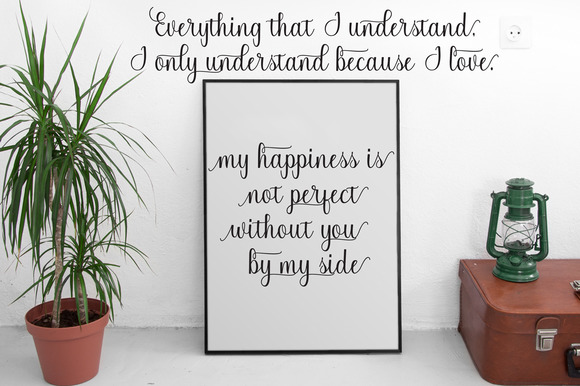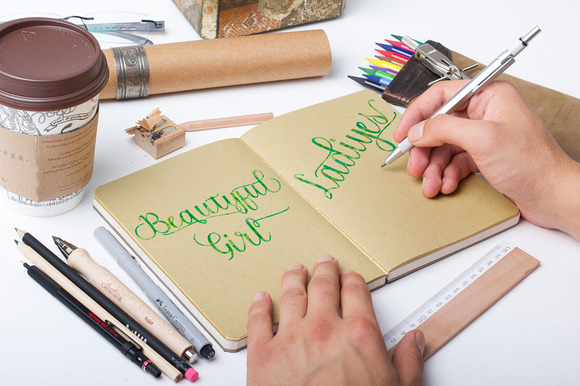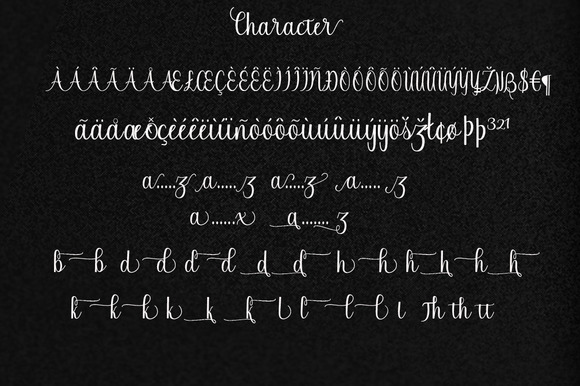
The Birth of a Luxurious Font: Chinchilla Font
As a designer, you know that sometimes the most magical moments come from a spark of inspiration. It’s that ‘aha’ moment when everything falls into place, and your creativity flows effortlessly. For me, it was a chilly winter morning, sipping hot coffee and browsing through font collections online. I stumbled upon a smooth, handmade font that made my heart skip a beat – it was love at first sight!
This is where the Chinchilla Font comes in – a luxurious, handcrafted font designed to elevate your designs to the next level. With its unique, smooth lines and elegant curves, Chinchilla Font is perfect for creating sophisticated and high-end visual content. Whether you’re a graphic designer, a branding expert, or a digital artist, Chinchilla Font is an invaluable addition to your toolkit.
Chinchilla Font Key Features
- Font Family: Chinchilla Font offers a range of font styles, including Regular, Italic, Bold, and Bold Italic.
- Unique Characteristics: Chinchilla Font features a unique, hand-drawn design with subtle texture and organic feel, making it ideal for creative and artistic applications.
- Font Metrics: Chinchilla Font has an x-height of 450 units and an average character width of 500 units, providing a balanced and readable text experience.
Chinchilla Font Review
Overall, I’m quite impressed with the Chinchilla Font. It’s a unique, high-quality typeface that stands out from the crowd. Here are some things that really work well:
- ✨ Beautiful, elegant design: The Chinchilla Font has a beautiful, flowing design that’s perfect for titles, headings, and other display typography.
- ✨ Great legibility: Despite its elegant design, the font is still highly legible, making it suitable for body text as well.
- ✨ Wide language support: The font supports a wide range of languages, including Latin, Cyrillic, and Greek alphabets.
However, there are a few limitations to keep in mind:
- ⚠️ Limited font weights: While the font has a range of styles, it’s a bit limited in terms of font weights. There are only a few bold and italic variations available.
- ⚠️ Some compatibility issues: I experienced some compatibility issues with the font in certain design applications and browsers.
Overall, I think the Chinchilla Font is a great choice for designers who want a unique, high-quality typeface for their projects. While it’s not perfect, its beautiful design and wide language support make it a solid addition to any design toolkit.
Tips for Getting the Most Out of Chinchilla Font
To get the most out of Chinchilla Font, try the following:
– Use it in conjunction with bold or italic text to add emphasis.
– Experiment with different font sizes to create visual interest.
– Use Chinchilla Font in combination with other fonts to create a unique and visually appealing design.
Common Use Cases for Chinchilla Font
Chinchilla Font is commonly used in:
– Children’s books and educational materials.
– Fashion and beauty branding.
– Whimsical and playful designs.
Yes, the Chinchilla Font is designed to be legible at small text sizes. Its high x-height and open letterforms ensure that it remains clear and readable even at font sizes as low as 8 points.